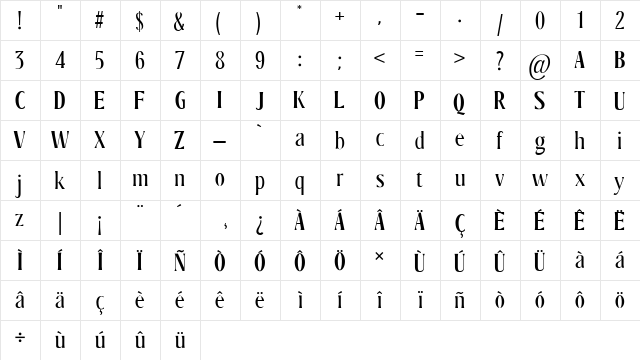
Vainilla Regular
| Designer | Lucia Escalera |
Design Context for Vainilla Typeface
Vainilla is a composed and adaptable typeface that performs quietly and consistently across a wide range of design contexts.